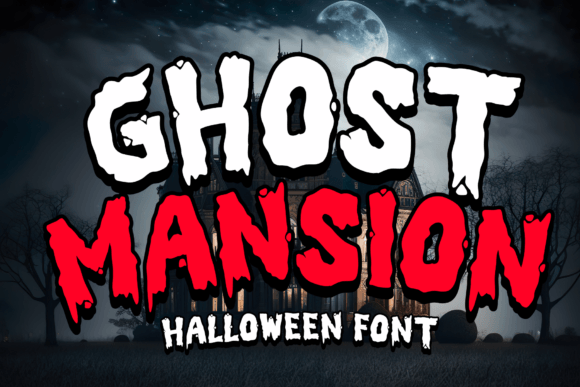
Spook Up Your Designs with the Perfect Font
As a designer, there’s nothing quite like the thrill of brainstorming ideas for a new project, especially around Halloween. The creativity flows, and the possibilities are endless. You envision a spooky yet playful design that captures the essence of the season. But, the right font can make all the difference between a good design and a great one. That’s where the Ghost Mansion Font comes in – a Halloween decorative font that’s sure to bring your projects to life.
With its unique blend of playfulness and authenticity, the Ghost Mansion Font is the perfect addition to any design. Whether you’re creating blog posts, logos, branding, or invitations, this font is sure to add a touch of magic to your work. And, as a designer, you know that having the right tools at your disposal can be invaluable.
Ghost Mansion Font Key Features
- Unique Characteristics: Hand-drawn, distressed, and vintage-inspired design, perfect for creating a spooky atmosphere in graphic design, typography, and digital art
- Font Style: Display, sans-serif, with a mix of serif and script elements
Ghost Mansion Font Review
Overall, I was quite impressed with the Ghost Mansion Font. The ✨ elegant, mysterious vibe it exudes is perfect for creating a spooky atmosphere in any design project.
- ✨ The font’s unique, hand-drawn feel adds a touch of personality to any text.
- ✨ The bold weights are perfect for creating a sense of drama and emphasis.
- ✨ The font is highly customizable, with a wide range of stylistic options available.
However, I did encounter a few limitations during my testing.
- ⚠️ The font may not be the best choice for large blocks of text, as it can become overwhelming and difficult to read.
- ⚠️ Some of the stylistic options can be a bit tricky to use, and may require some trial and error to get right.
- ⚠️ The font may not be suitable for all types of designs, as it can come across as a bit too spooky or kitschy.
Overall, I would recommend the Ghost Mansion Font for designers looking to add a touch of mystery and elegance to their projects. While it may have some limitations, the unique feel and high level of customization make it a great choice for the right projects.
Tips for Getting the Most Out of Ghost Mansion Font
Use Ghost Mansion Font for titles and headings to add a touch of elegance and sophistication to your design. Experiment with different font sizes and colors to create a striking contrast.
Common Use Cases for Ghost Mansion Font
Ghost Mansion Font is ideal for designing invitations, posters, and other promotional materials. It’s also suitable for use in horror-themed designs, as its spooky and mysterious vibe fits perfectly with the genre.
Alternatives to Ghost Mansion Font
Dancing Script is a lively and elegant script font that’s perfect for titles, headings, and other display text. It’s a great choice for designers looking to add a touch of sophistication and glamour to their designs. Compared to Ghost Mansion Font, Dancing Script has a more dynamic and playful feel, making it ideal for designs that require a sense of energy and movement.
Q: Can I customize the Ghost Mansion Font to fit my design needs?
Yes, the Ghost Mansion Font is highly customizable. You can adjust the font size, color, and spacing to fit your design requirements. Additionally, the font’s OpenType features allow for advanced typographic controls, such as ligatures, swashes, and stylistic sets, which can be used to create unique and creative designs.